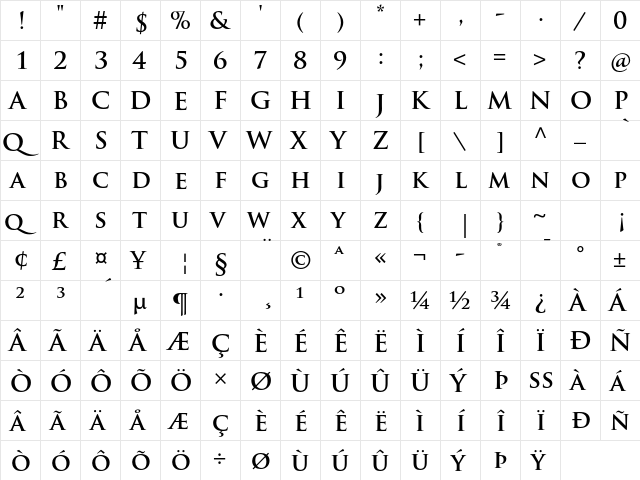
Trajan Pro Bold
| Designer | Carol Twombly |
Design Context for Trajan Pro Typeface
Trajan Pro takes a measured approach to typography — its balanced proportions and neutral character make it a reliable workhorse for both digital and print work. The heavy weight commands attention and anchors typographic hierarchies.